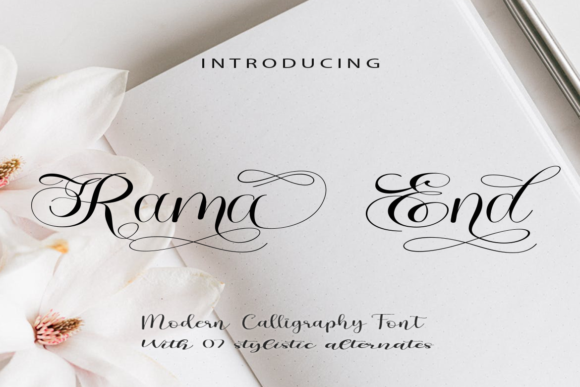
Introduction to Rama End Font
Rama End feels incredibly romantic and beautiful.
It is PUA encoded which means you can access all of the glyphs and swashes with ease It features a varying baseline, smooth lines, gorgeous glyphs and stunning alternates.
Key Features of Rama End Font
Why Choose Rama End Font?